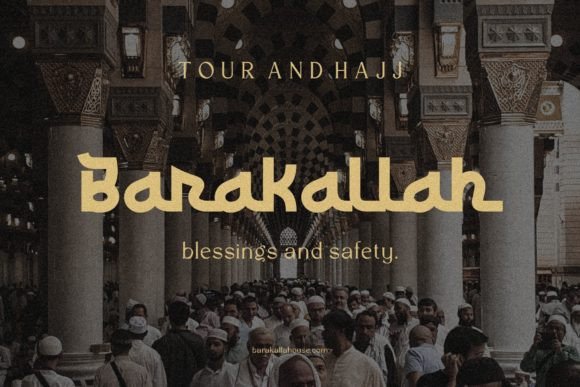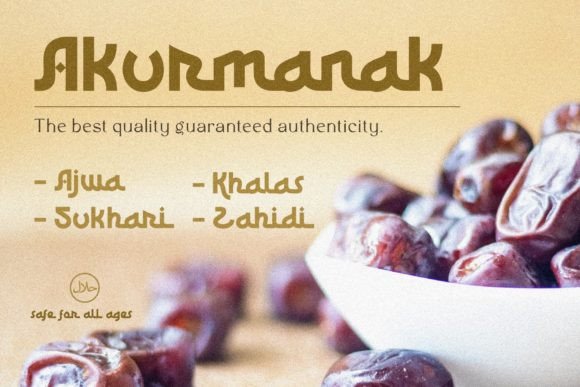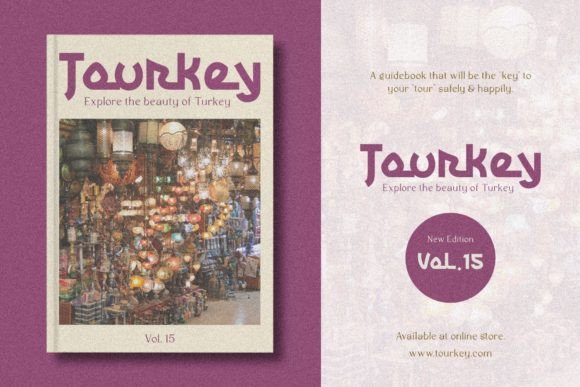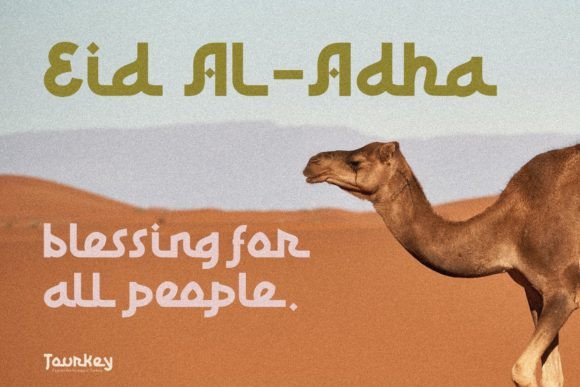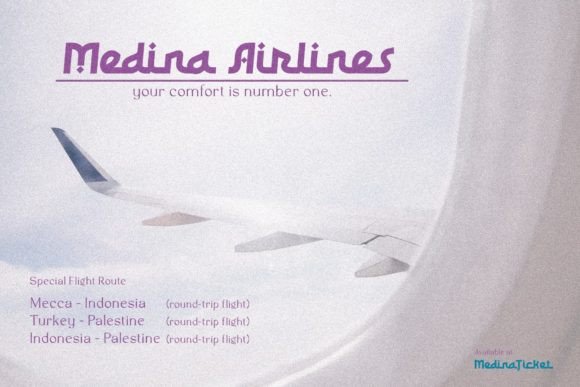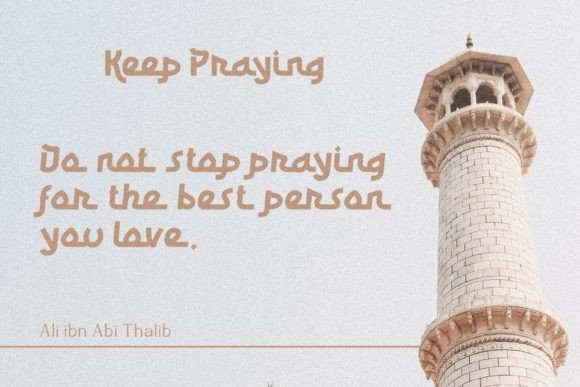
Introduction to Miqdad Font
Have you ever found yourself stuck in front of a blank canvas, struggling to bring your creative vision to life? That’s where the perfect design resource comes in – one that can elevate your project from ordinary to extraordinary. For designers looking to add a touch of elegance and sophistication to their work, the Miqdad Font is an absolute game-changer.
This stunning display font is inspired by the traditional Arabic typography, masterfully designed to maintain its classy calligraphic influences while feeling fresh and contemporary. With its unique style, the Miqdad Font is sure to become a true favorite among designers, allowing them to bring their creative projects to the highest levels. Whether you’re working on a high-quality design or simply looking for a free download to add some flair to your work, the Miqdad Font is a valuable addition to any design toolkit.
Key Features of Miqdad Font
- Unique Arabic Calligraphy Style: Miqdad Font boasts an elegant and intricate design, perfect for creative projects that require a touch of Middle Eastern flair.
- Transparent Background: Miqdad Font comes with a transparent background, allowing designers to easily integrate it into various design elements and backgrounds.
- Supports Multiple Languages: This font supports various languages, including Arabic, making it an ideal choice for multilingual creative projects.
- High Resolution: This font is designed at a high resolution, ensuring that it remains crisp and clear when used in large formats or high-resolution prints.
- Perfect for Creative Projects: Miqdad Font is ideal for designers working on creative projects, such as book covers, magazine layouts, and advertising materials, that require a sophisticated and elegant look.
Honest Review: Miqdad Font
Here’s what works well: ✨ The font has a beautiful, elegant feel to it, perfect for formal or professional applications. The transparent background is a nice touch, allowing the text to blend seamlessly with any image or background.
Some notable features include:
- Elegant and modern design
- High-quality glyphs and characters
- Perfect for formal or professional applications